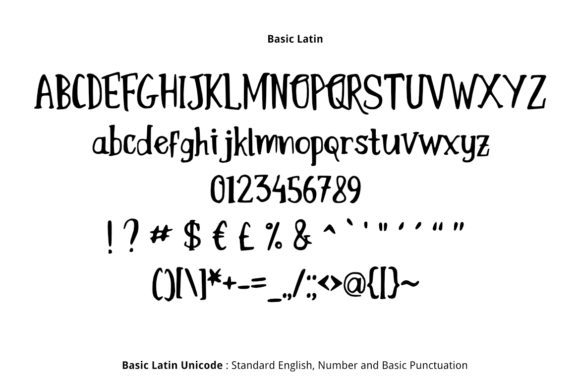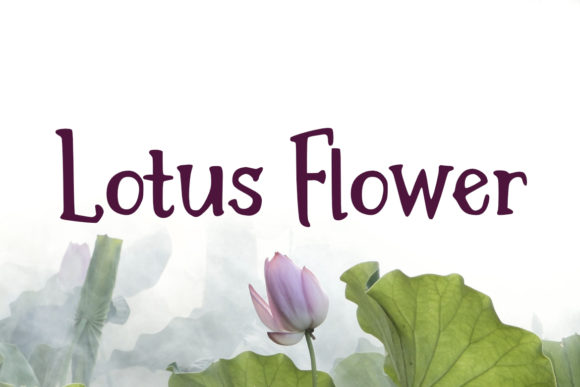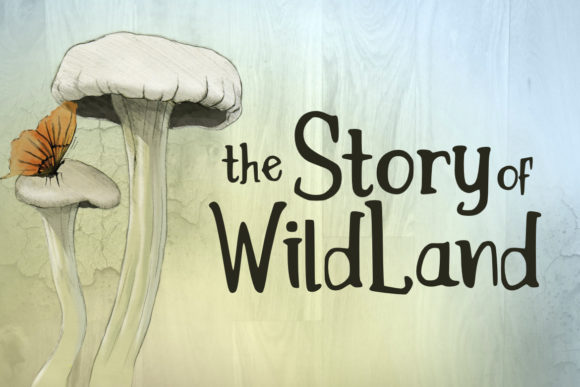
Fable Bug Font: Add a Touch of Whimsy to Your Fairytale-Themed Designs
Are you looking for a font that will add a dash of magic to your design projects? Look no further than the Fable Bug font! This fantastic serif font is perfect for fairytale-themed designs, and its wicked charm is sure to inspire your creativity. In this article, we’ll take a closer look at the Fable Bug font, its features, and how you can use it to take your designs to the next level.
The Story Behind Fable Bug Font
The Fable Bug font is a unique and charming typeface that is inspired by the whimsical world of fairytales. Its design is characterized by intricate details, elegant lines, and a touch of playfulness. The font is perfect for designers and crafters who want to add a touch of magic to their projects, whether it’s a children’s book, a wedding invitation, or a packaging design.
Key Features of Fable Bug Font
- Serif Font: Fable Bug is a serif font, which means it has small lines or flourishes at the ends of the letters. This gives the font a classic and elegant look that’s perfect for fairytale-themed designs.
- Wicked Charm: The Fable Bug font has a unique and charming personality that’s sure to add a touch of whimsy to your designs. Its intricate details and elegant lines make it perfect for designs that require a touch of sophistication.
- Highly Versatile: Fable Bug is a highly versatile font that works well with a variety of design projects, from children’s books to wedding invitations, packaging design, and more.
- Easily Readable: Despite its intricate details, the Fable Bug font is easily readable, making it perfect for body text and headings.
How to Use Fable Bug Font in Your Designs
The Fable Bug font is perfect for a variety of design projects, including:
- Children’s Books: Add a touch of magic to your children’s book with the Fable Bug font. Its whimsical design and elegant lines make it perfect for storybooks, picture books, and early readers.
- Wedding Invitations: Make your wedding invitation stand out with the Fable Bug font. Its elegant design and intricate details make it perfect for formal and informal wedding invitations.
- Packaging Design: Add a touch of whimsy to your packaging design with the Fable Bug font. Its unique design and highly versatile nature make it perfect for product labels, packaging, and branding.
- Digital Designs: The Fable Bug font is also perfect for digital designs, including social media graphics, blog posts, and website headers.
Tips and Tricks for Using Fable Bug Font
Here are some tips and tricks for using the Fable Bug font in your designs:
- Pair it with a Sans-Serif Font: Pair the Fable Bug font with a sans-serif font to create a beautiful contrast and add visual interest to your design.
- Experiment with Colors: The Fable Bug font looks great in a variety of colors, from bright and bold to soft and pastel. Experiment with different colors to find the perfect look for your design.
- Use it for Headings and Titles: The Fable Bug font is perfect for headings and titles, where its intricate details and elegant lines can really shine.
The Fable Bug font is a fantastic serif font that’s perfect for fairytale-themed designs. Its wicked charm, highly versatile nature, and easily readable design make it a great choice for designers and crafters. Whether you’re working on a children’s book, wedding invitation, or packaging design, the Fable Bug font is sure to add a touch of magic to your project. So why not give it a try and see the difference it can make?